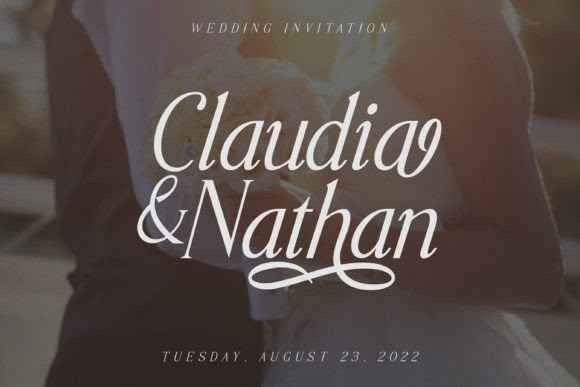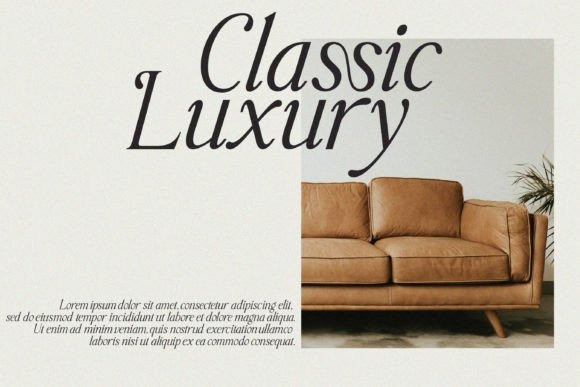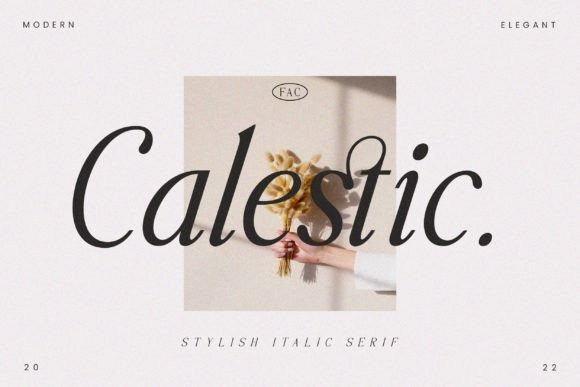
Calestic Font
Calestic Font – Modern Serif Italic typeface that gives a flawless touch to any design you create! Don’t forget to try out the connected letters or swashes in some characters to get the classy and elegant style of Calestic.